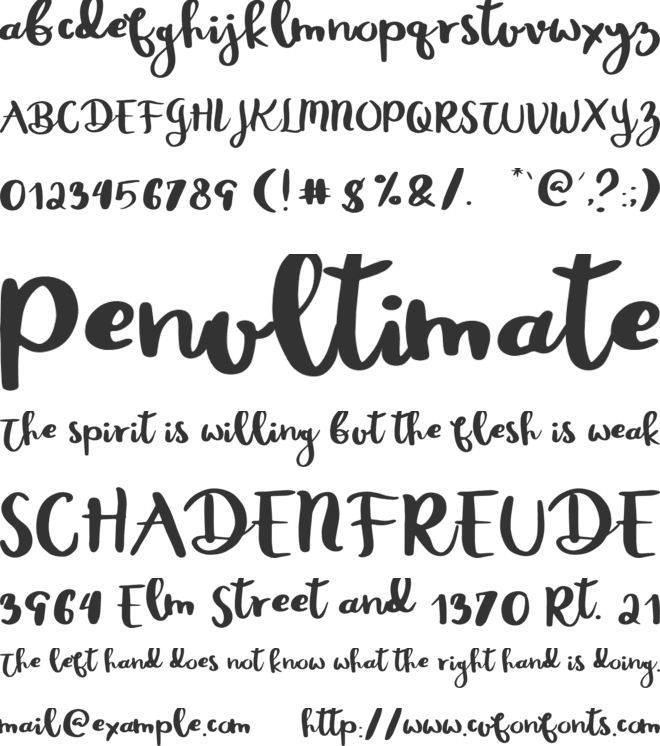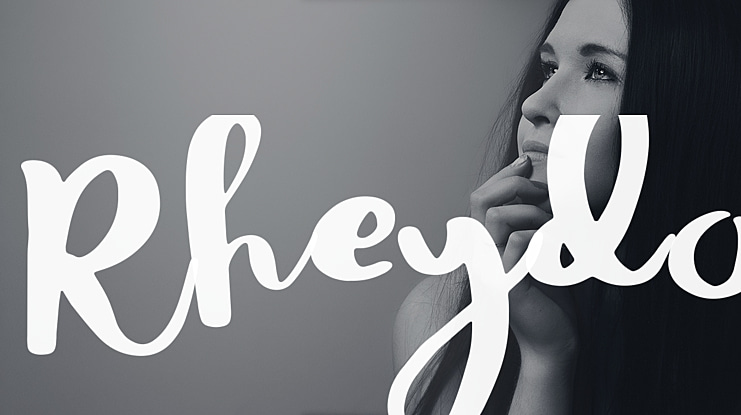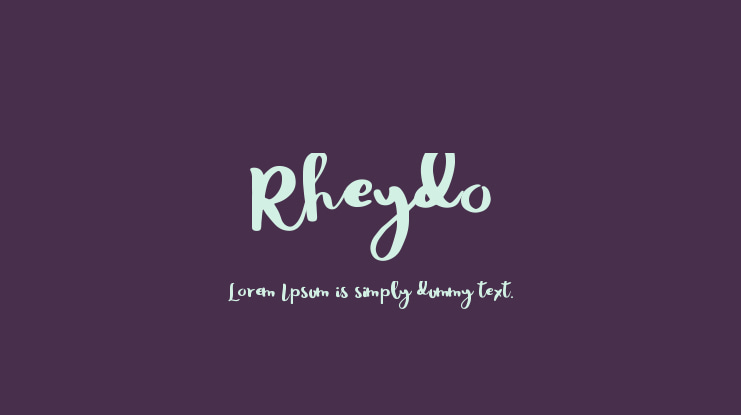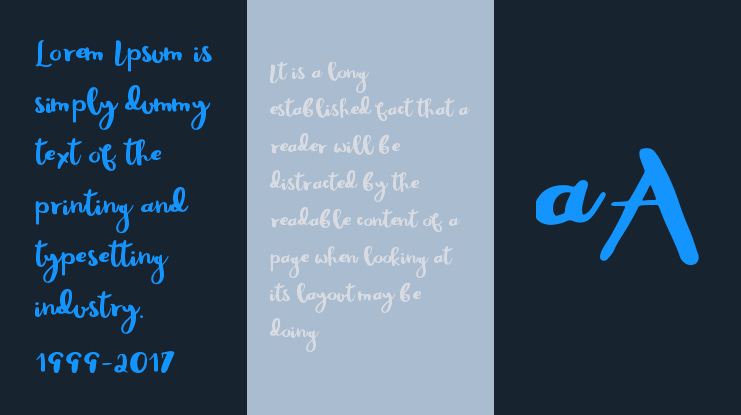
Rheydo Font
​​​​​​​Say hello to Rheydo Script, our natural hand painted caligraphy font. It has sleek, beautiful but classy character. Rheydo is perfect for your upcoming projects, such as invitation design, stationery, branding, blog design, advertising design, card, art quote, home decor, book title, special events and more. It includes ligatures and ready to make your day!